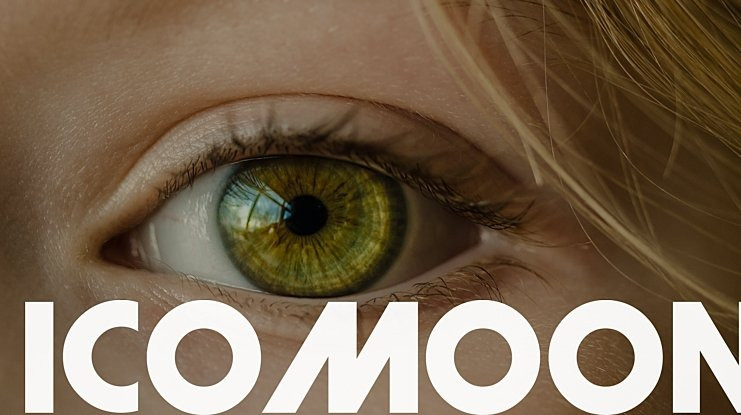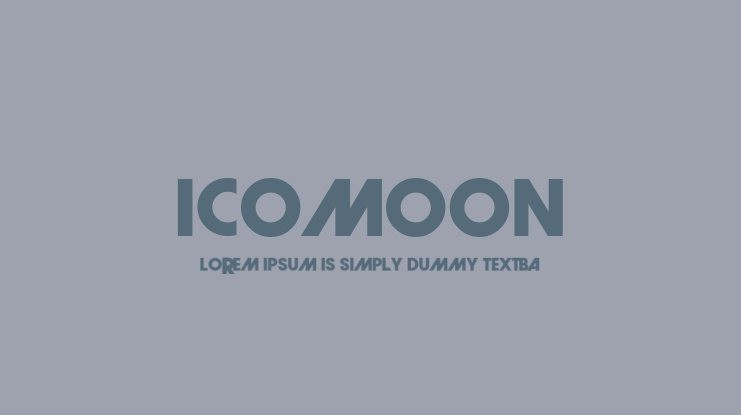
Icomoon Display Font, Ideal for logos, handwritten quotes, product packaging, header, poster, merchandise, social media & greeting cards.
Icomoon Font
| Classification: | Display Fonts, Sans Serif Fonts |